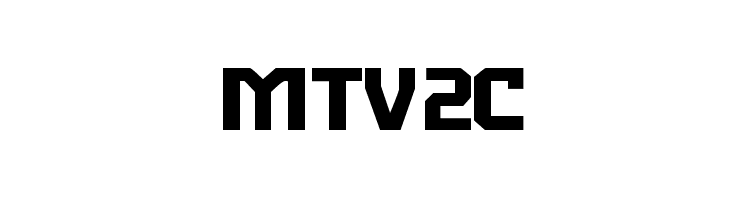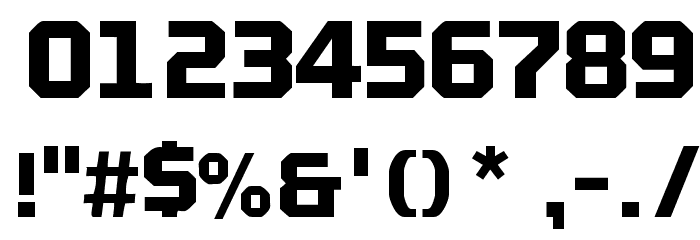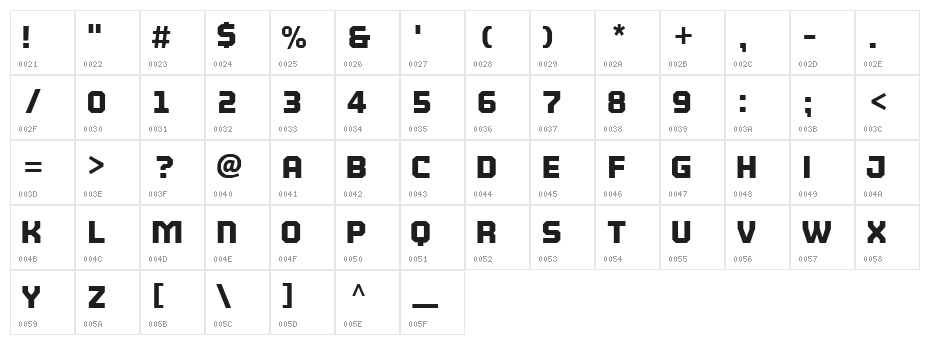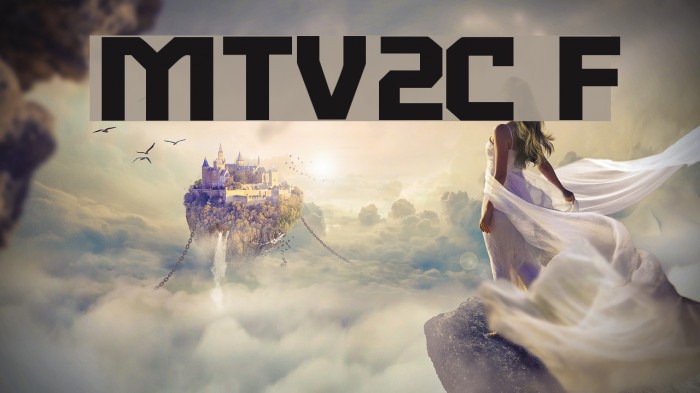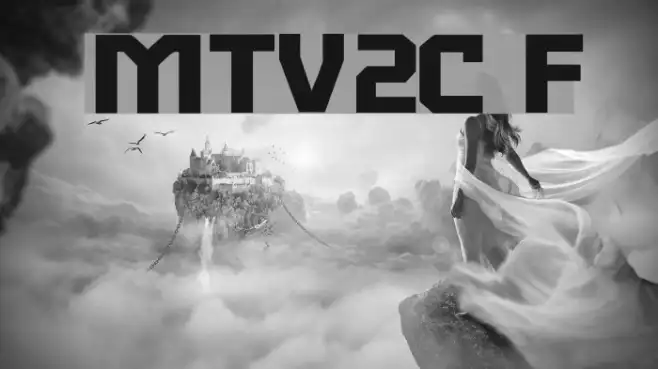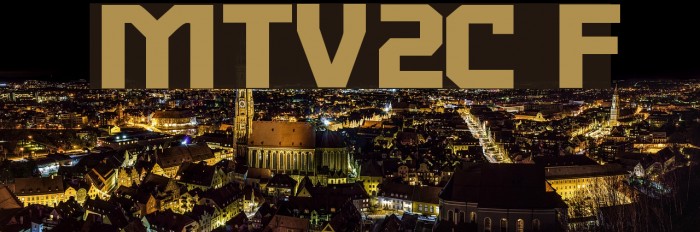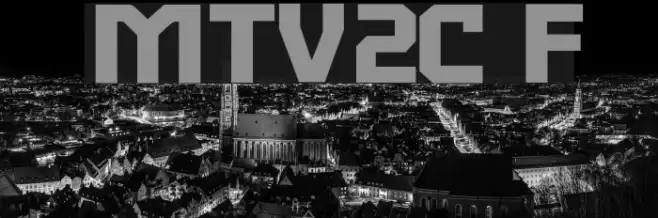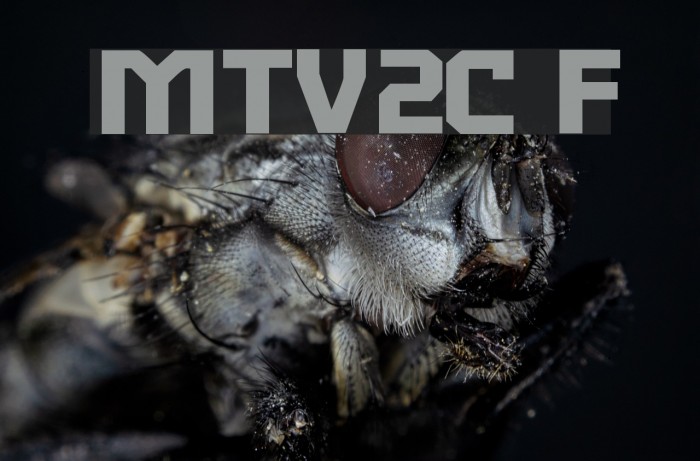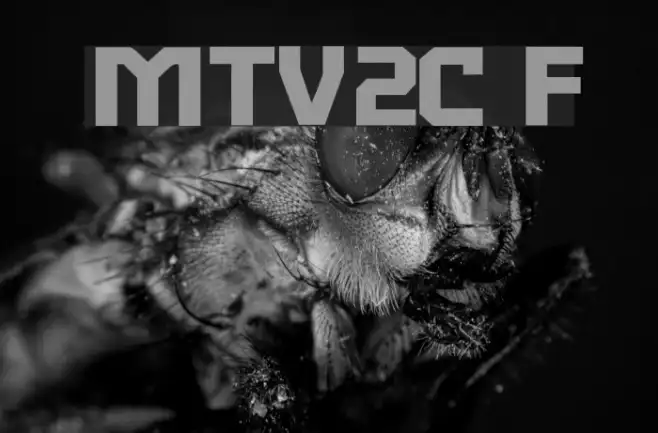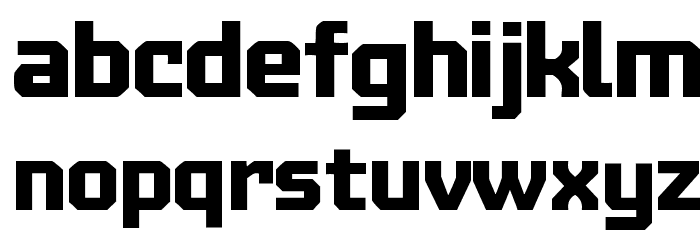
MTV2C Font
MTV2C Description
This font features a bold and geometric design with a strong, impactful presence. The characters are constructed with sharp angles and straight lines, giving it a modern and industrial feel. The uppercase and lowercase letters maintain a consistent style, with the lowercase slightly more compact. Numbers and special characters follow the same robust design, ensuring uniformity across all glyphs. The font's blocky appearance makes it stand out, ideal for capturing attention in various design contexts. Its distinct style is suitable for projects that require a bold statement.